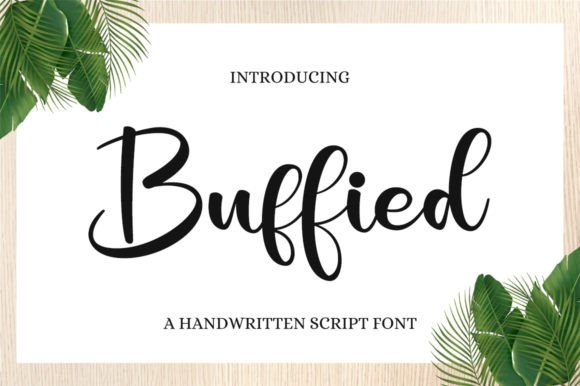
Introducing Buffied Font: A Journey Through the Rustic Charm of Farm Life
In the realm of typography, Buffied Font emerges as a captivating script font, a testament to the enduring allure of farm life. With its flowing lines and playful strokes, Buffied evokes the nostalgia of handwritten letters, capturing the essence of rural simplicity and the warmth of country living.
As a creative professional, you understand the power of fonts to elevate your designs and connect with your audience. Buffied Font stands as your trusted companion in this quest for visual excellence. Whether crafting eye-catching logos, branding materials, or heartwarming quotes, Buffied's charm weaves a tale of authenticity and heartfelt connection.
Imagine the rustic charm of a weathered barn, its wooden beams adorned with Buffied's intricate characters. The font's organic flow lends an air of timeless elegance, transporting viewers to a simpler era where life unfolded at a slower pace. With Buffied, your designs exude an earthy sophistication, a nod to the enduring beauty of the countryside.
But Buffied's versatility extends beyond the confines of farm-inspired aesthetics. Its playful nature lends itself to a diverse range of creative endeavors. Picture wedding invitations adorned with Buffied's graceful script, each letter a delicate brushstroke capturing the joy and romance of the occasion. Or envision social media posts that come alive with Buffied's whimsical charm, drawing followers into your captivating world of visual storytelling.
The Buffied Font is more than just a collection of characters; it's an invitation to embrace the beauty of simplicity, to evoke emotions, and to create designs that resonate with your audience. Its timeless appeal and versatility make it an indispensable tool for designers, marketers, and creative professionals seeking to leave a lasting impression.
Don't let your designs be confined by ordinary fonts. Embrace the rustic elegance and heartfelt charm of Buffied Font. Let your creativity flourish as you craft designs that speak to the soul and capture the essence of rural living. Experience the magic of Buffied Font today and embark on a creative journey that celebrates the beauty of farm life.